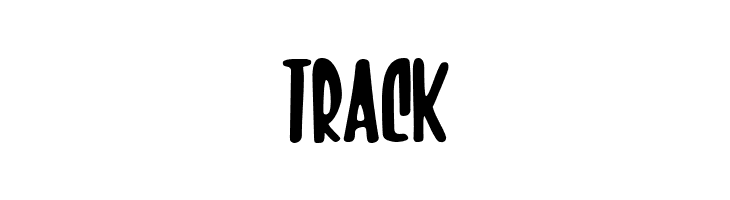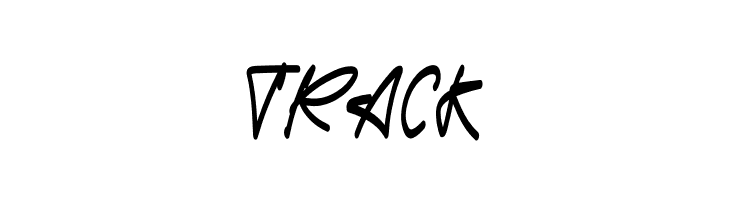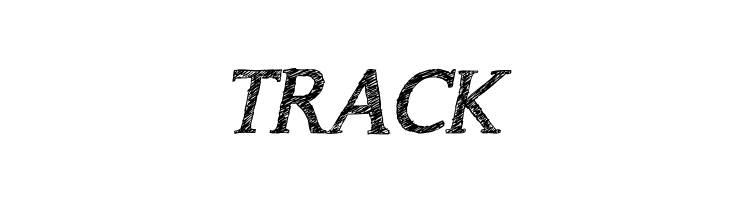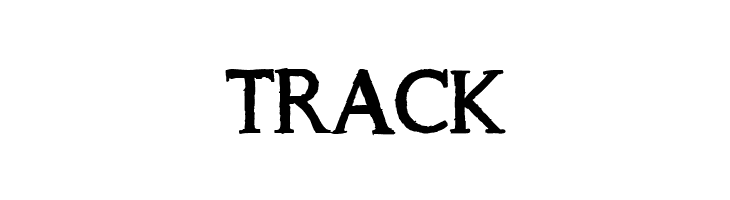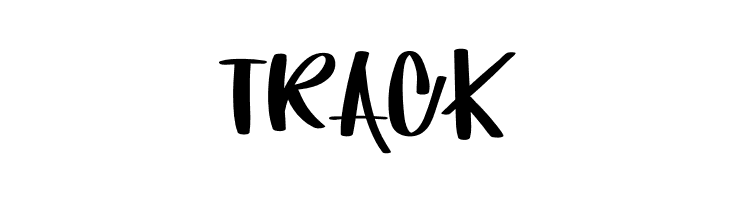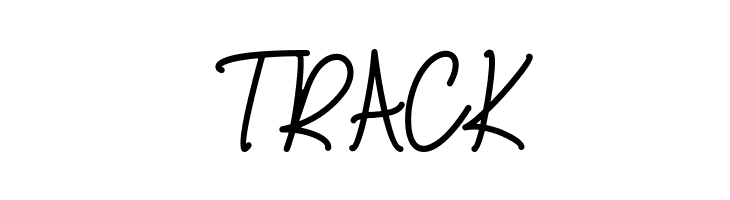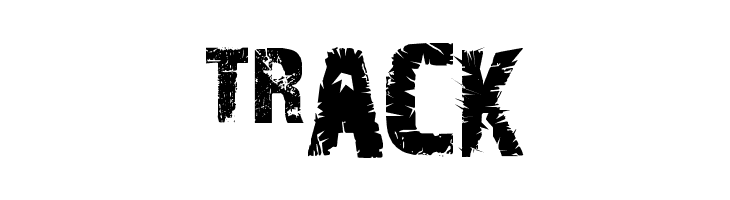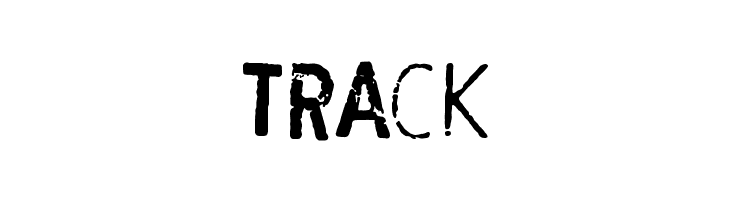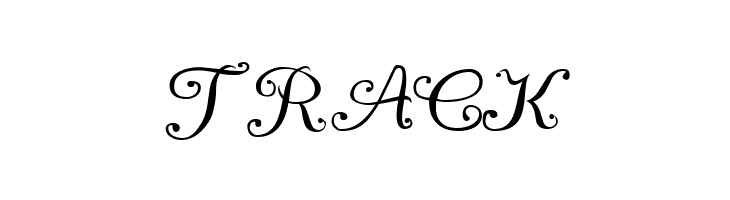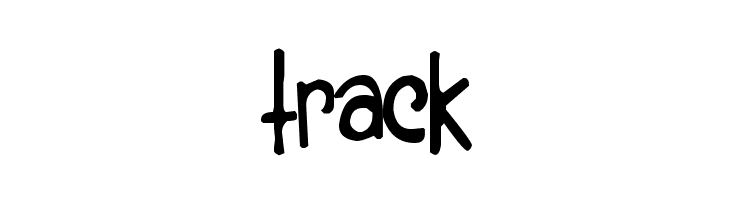
A distressed, grunge-style font with a rugged, textured appearance.
A gothic, distressed font with ornate and intricate letterforms.
A playful and whimsical handwritten font with irregular strokes.
A playful, rounded font with smooth, consistent strokes and a whimsical style.
A playful, hand-drawn font with a whimsical and friendly style.
A bold, distressed font with a vintage, rugged appearance.
An edgy, gothic font with claw-like serifs and a bold, dramatic style.
A bold, expressive handwritten font with dynamic strokes and playful curves.
A playful, handwritten font with smooth, flowing curves and interconnected letters.
A lively, expressive handwritten font with fluid strokes.
A playful, handwritten font with rounded, bubbly characters.
A bold, textured font with a woven pattern, ideal for dynamic and modern designs.
A bold, textured font with a rope-like pattern, ideal for striking visual designs.
A playful, bold, and hand-drawn font with a whimsical charm.
A bold, italic serif font with a classic yet modern appeal.
A bold, slightly distressed serif font with a hand-crafted feel.
A bold, italicized font with a textured, hand-drawn appearance.
A playful, hand-drawn font with irregular, whimsical letterforms.
An elegant, decorative script font with intricate swirls and embellishments.
A bold, three-dimensional block font with a modern, impactful style.
A dynamic, handwritten font with a casual and fluid style.
A bold, modern font with a futuristic and geometric design.
A futuristic, geometric font with clean lines and rounded edges.
A bold, futuristic font with geometric, rounded letterforms.
A modern, bold, and italic font with a sleek and dynamic design.
A sleek, modern italic font with a futuristic design.
A sleek, modern font with geometric lines and a minimalist design.